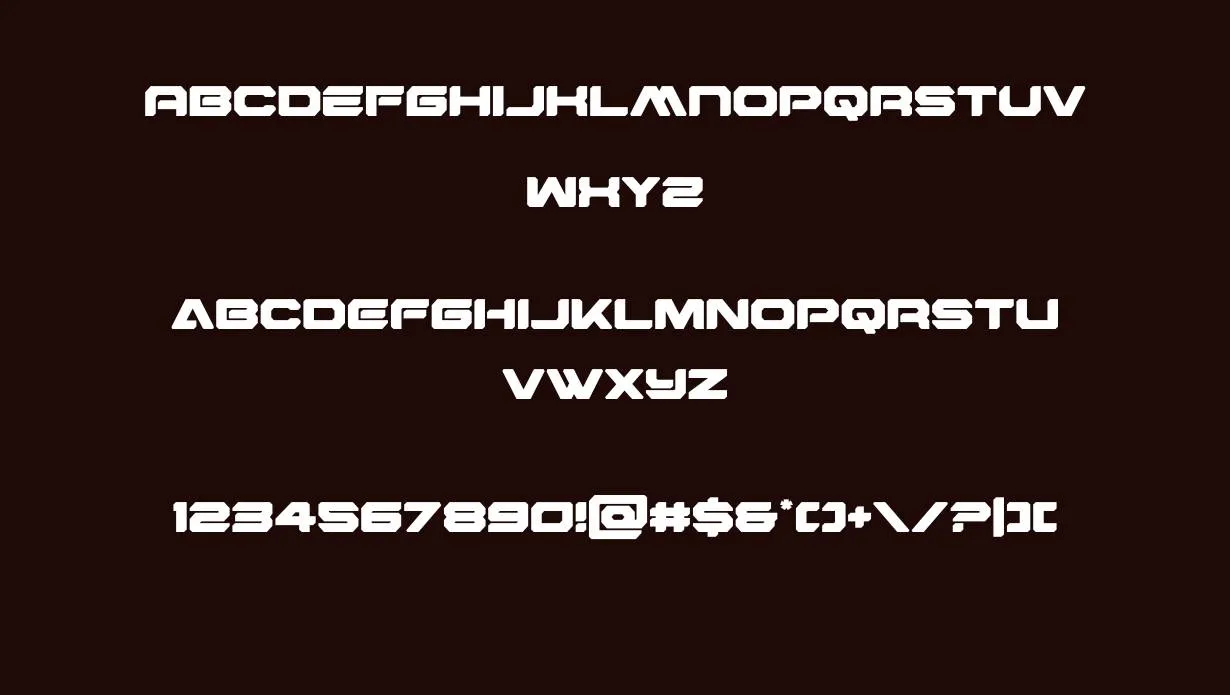
Hyper Viper Font is a futuristic and edgy typeface that adds a high-tech and dynamic element to designs. Its sharp angles and sleek design make it ideal for sci-fi posters, tech-related branding, and gaming graphics.
| Name | Hyper Viper Font |
| Designer | Daniel Zadorozny |